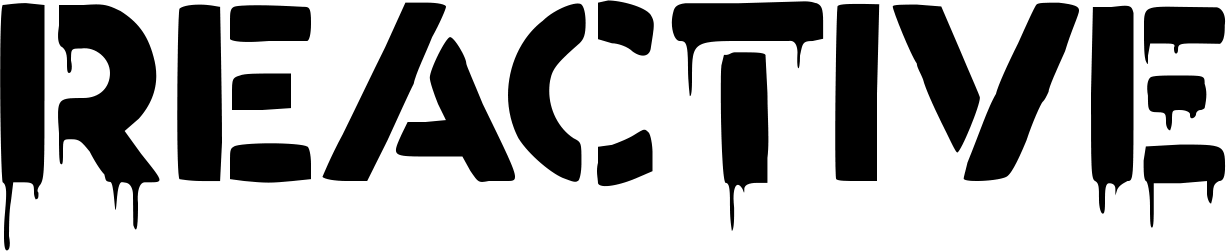
Reactive Font
Reactive is a bold, dripping font that looks strong and spooky. It comes from the industrial sans serif font family and has two sets of uppercase letters to offer including a dripping one. Some of the areas where Reactive would fit the bill consist of military displays and signs, posters, and games.